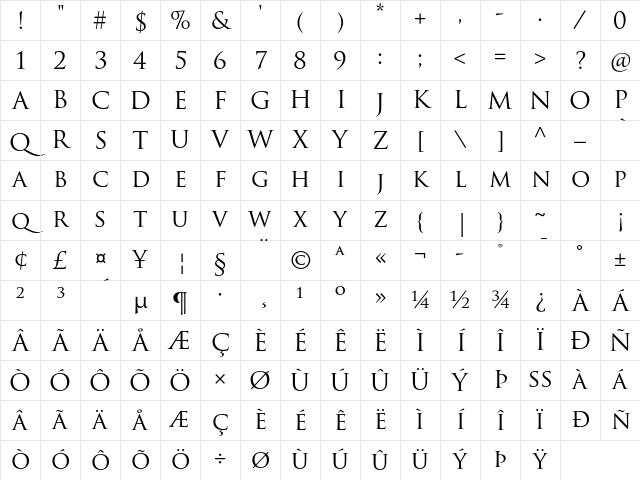
Trajan Pro Regular
Designer: Carol Twombly
Trajan Pro Family
Complete Trajan Pro Regular glyph index. Displaying only characters natively supported by Trajan Pro Regular font.
Design Context for Trajan Pro
Trajan Pro is a composed and adaptable typeface that performs quietly and consistently across a wide range of design contexts.
Pro Tip: Use Trajan Pro in both headline and body roles to test its range before committing to a single application.